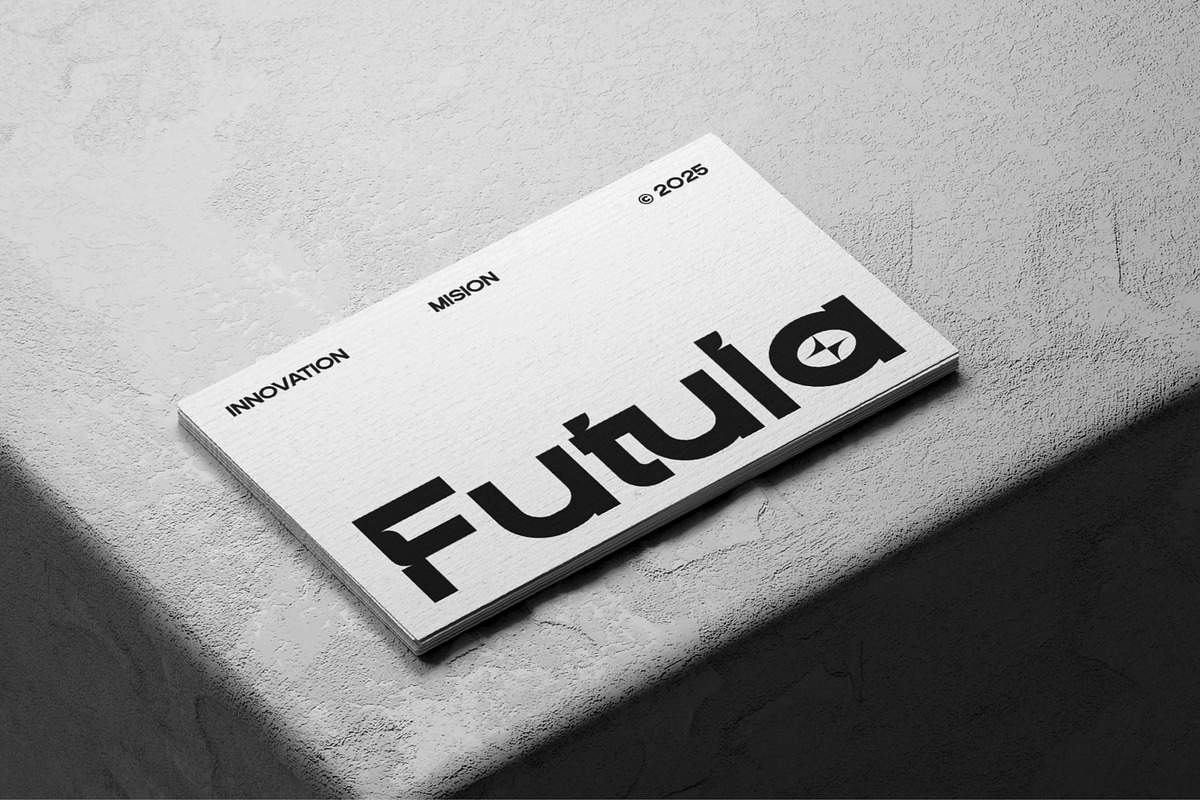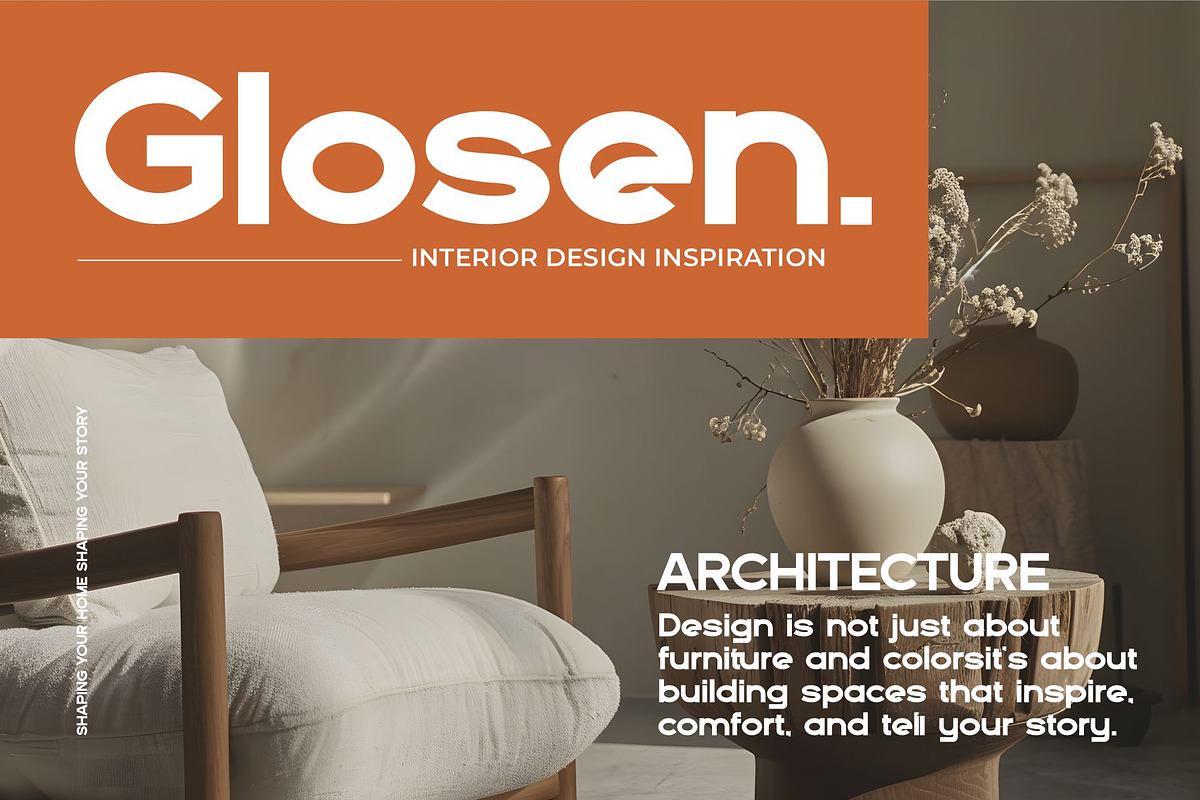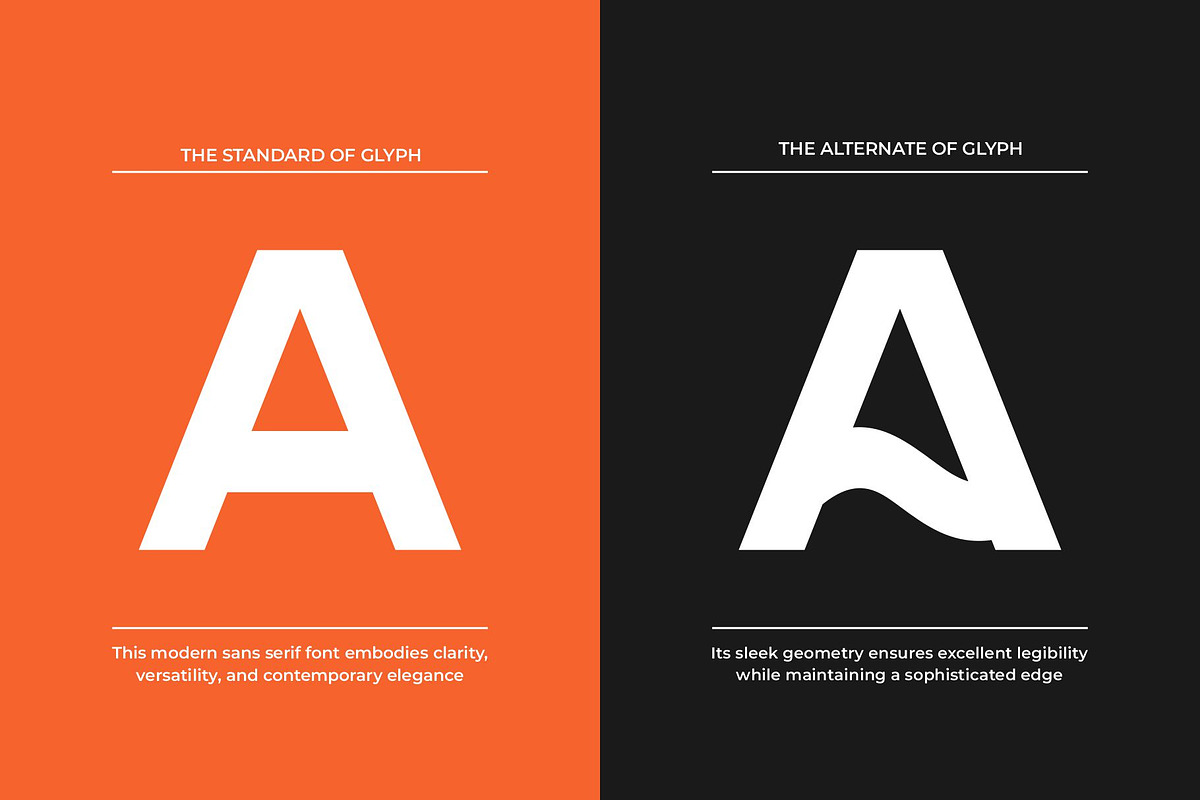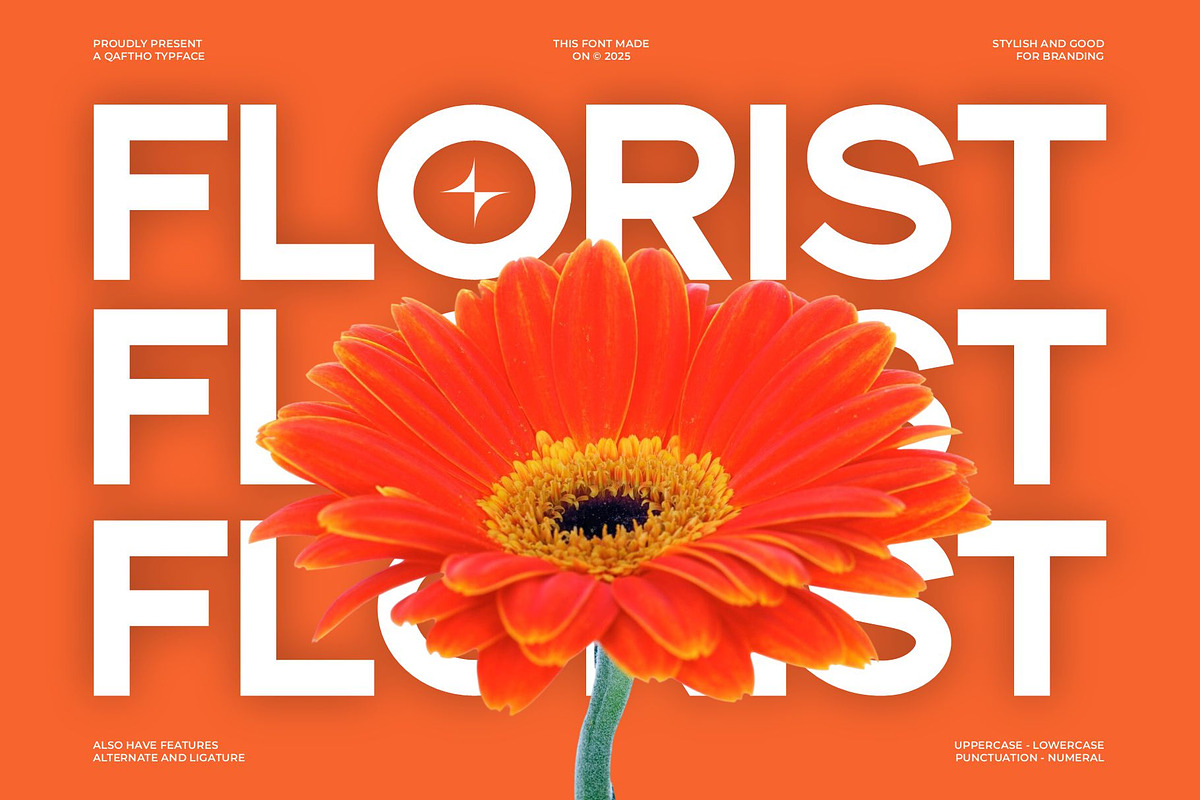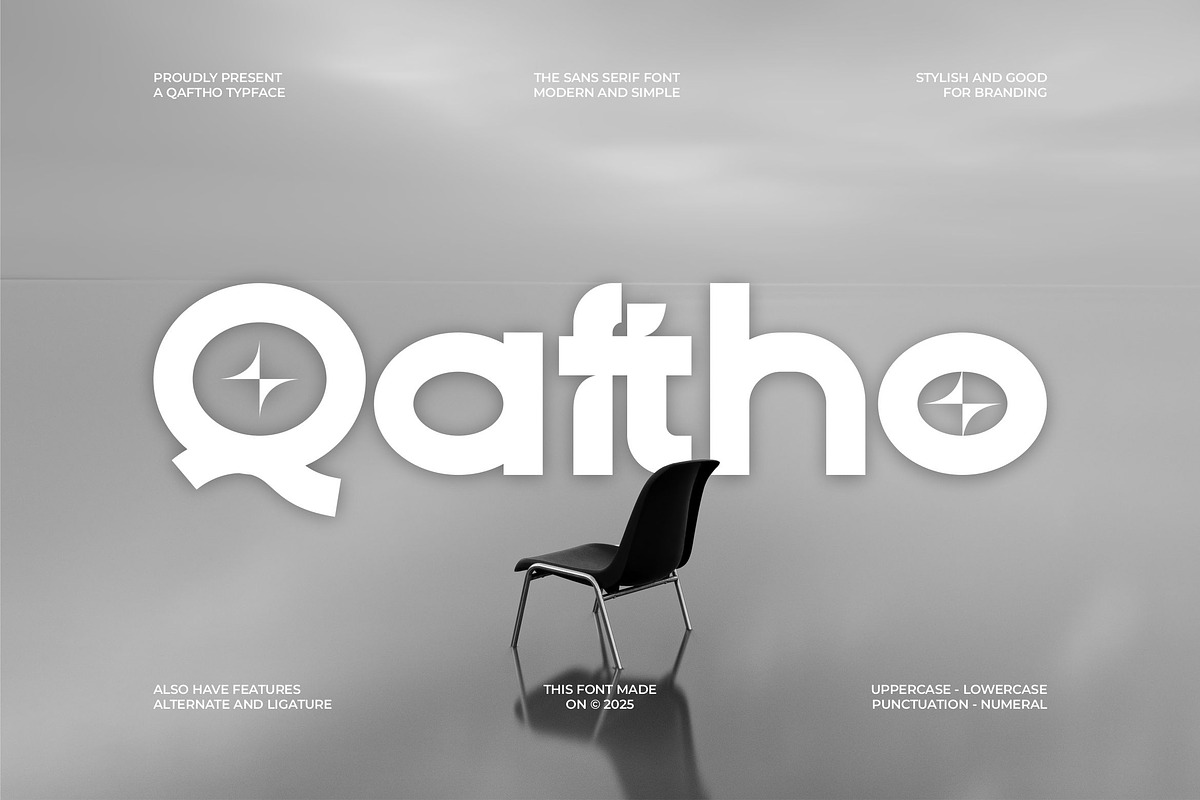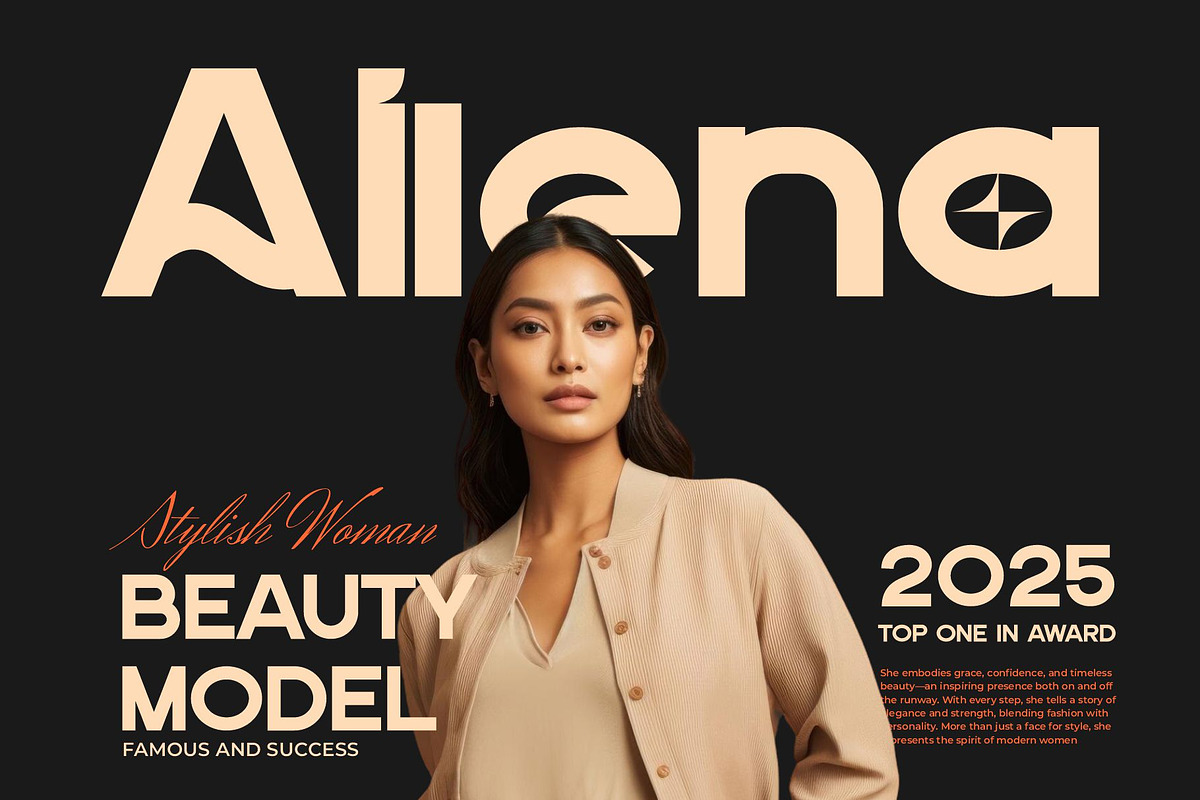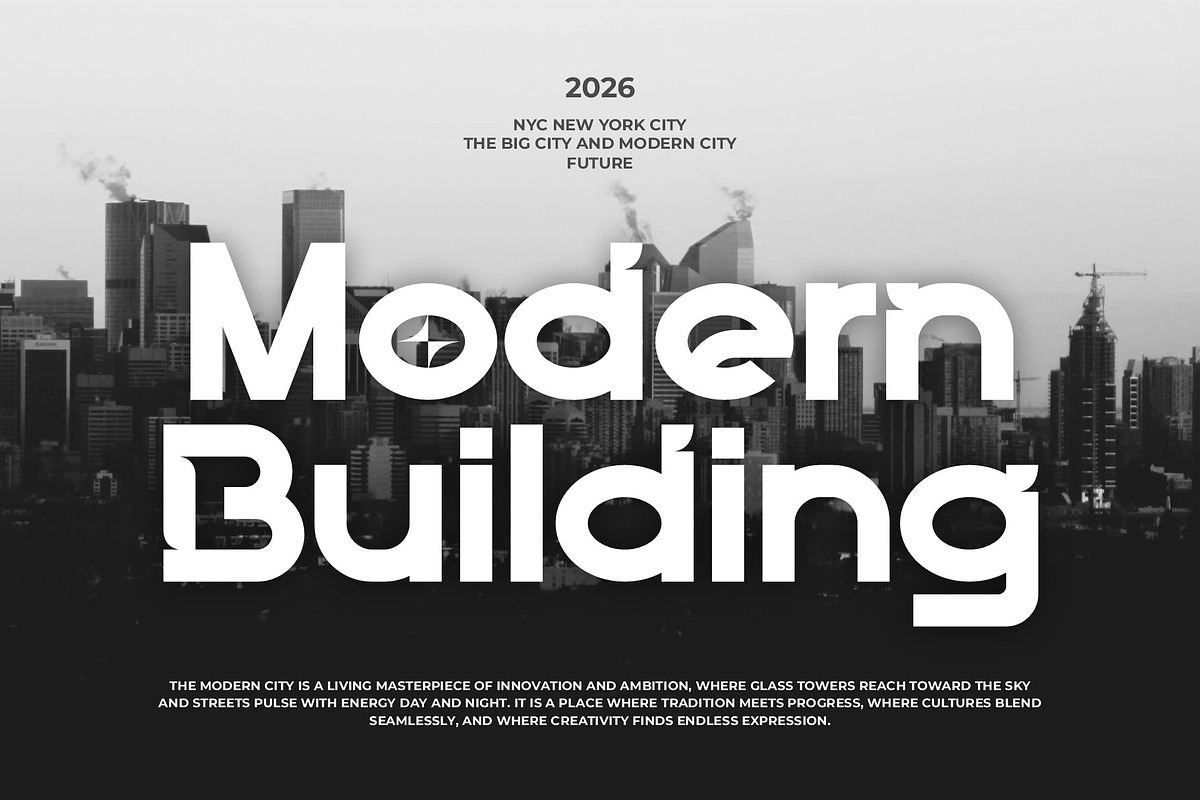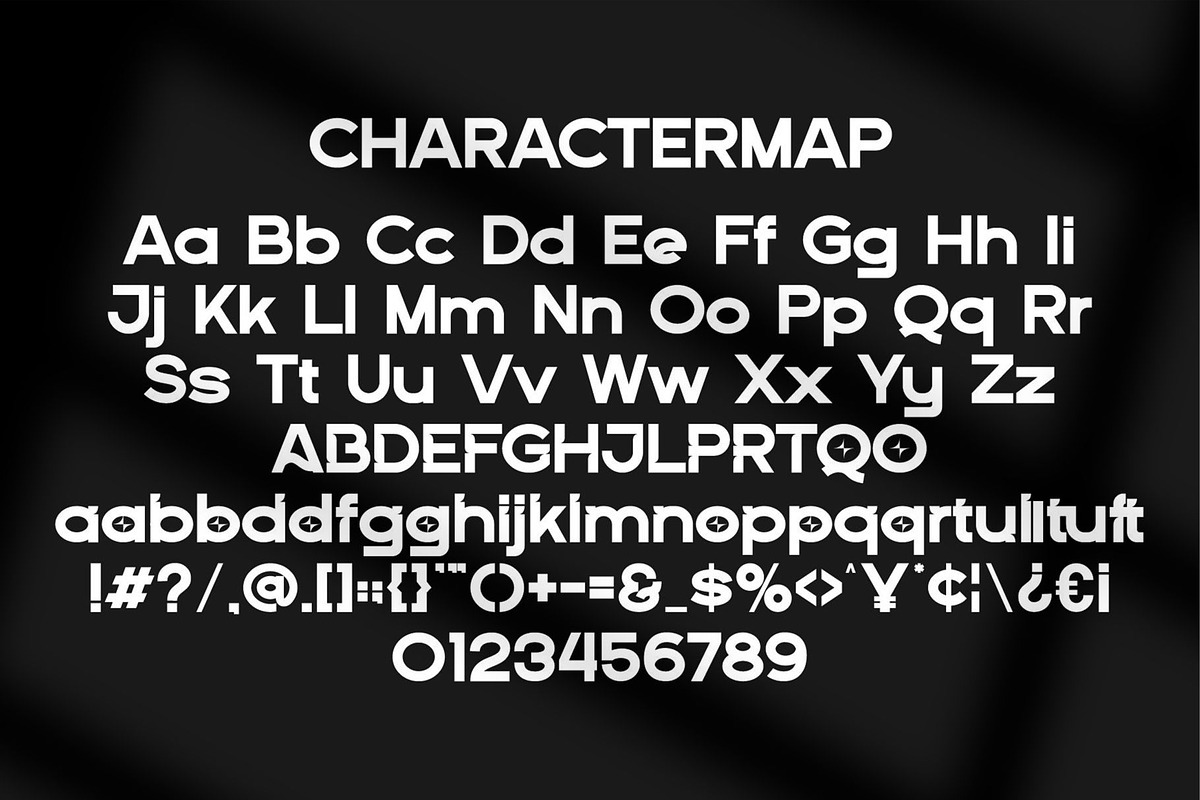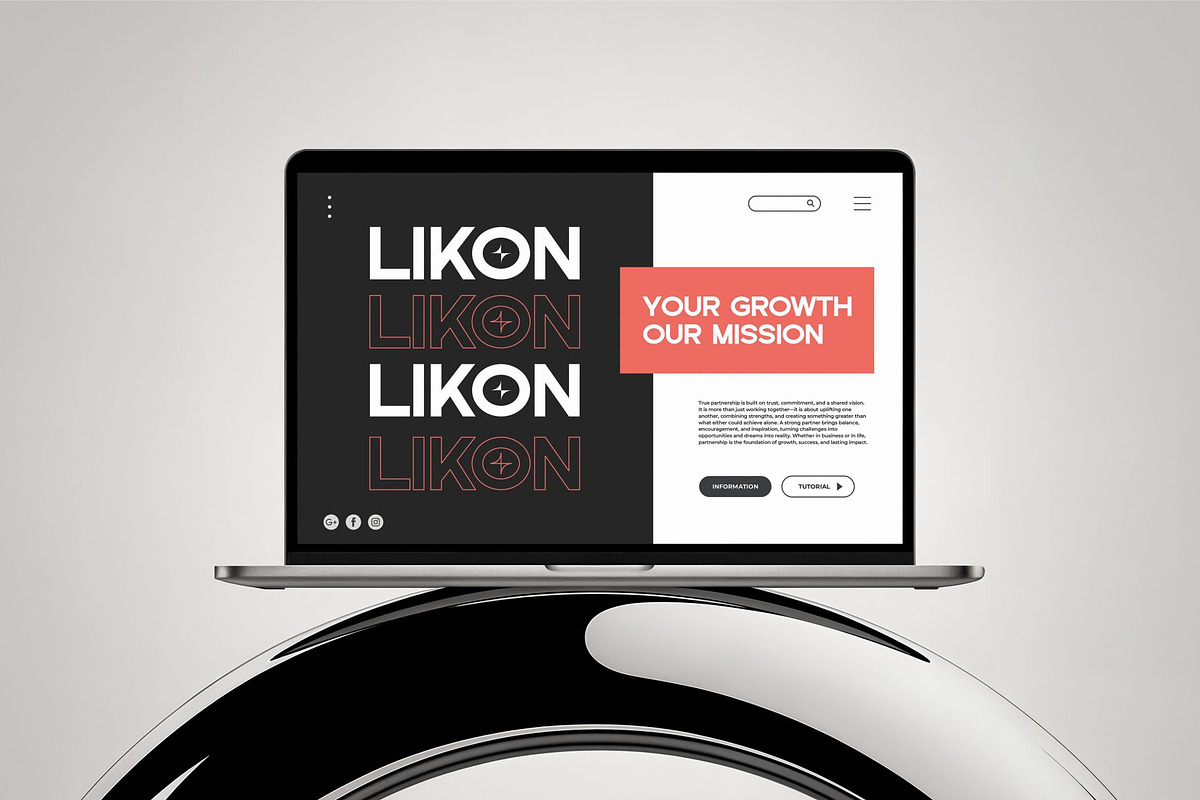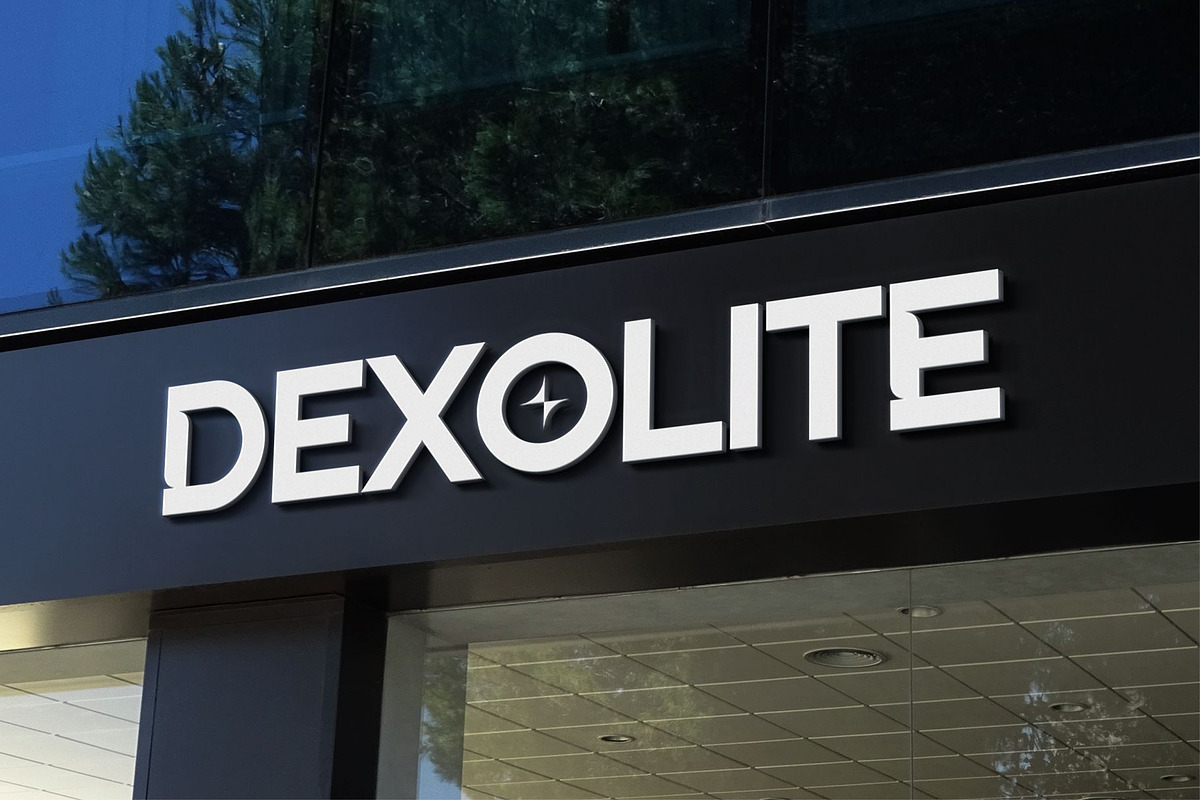
Qaftho || Modern Display Sans Serif
Introducing Qaftho sans serif font. This modern bold sans serif font commands attention with its strong lines, confident weight, and striking simplicity. Designed for impact, it delivers clarity and power without sacrificing elegance. Its geometric structure and clean edges make it versatile for headlines, branding, posters, and digital design—anywhere a bold statement is needed. Perfect for modern brands seeking strength and style, this font embodies authority, creativity, and timeless modernity.